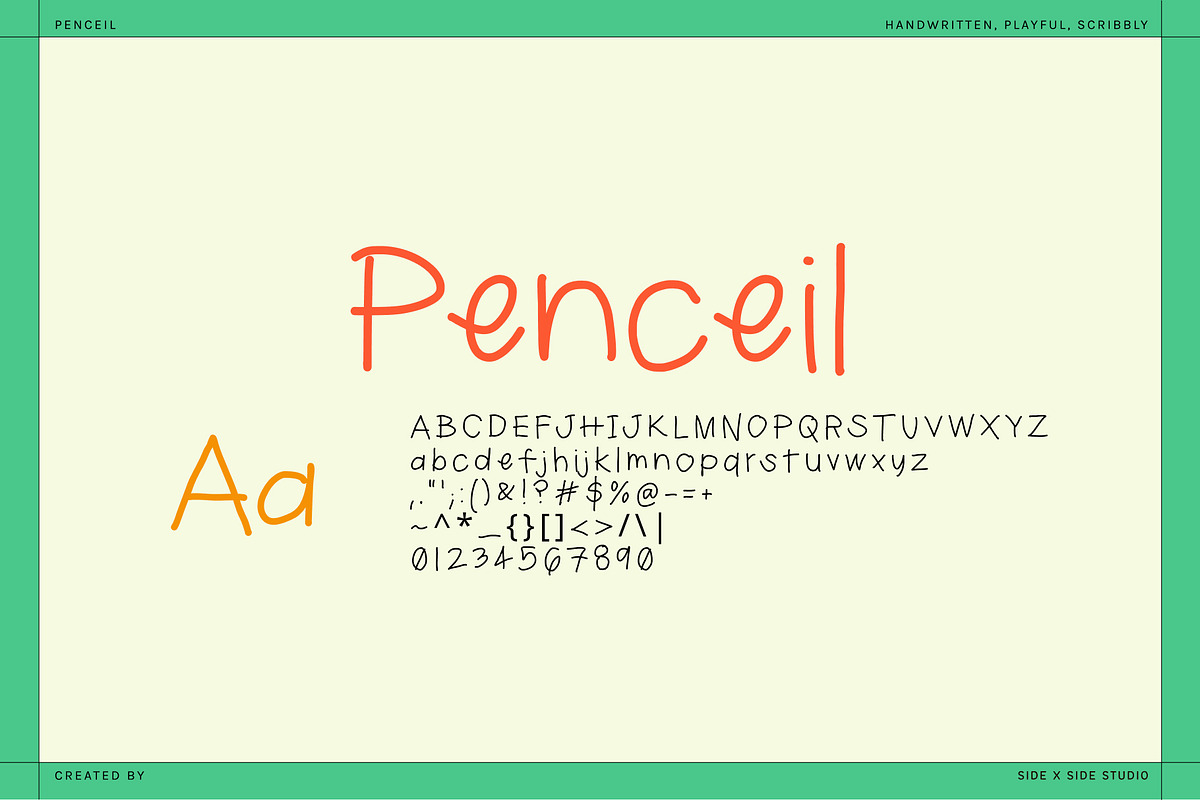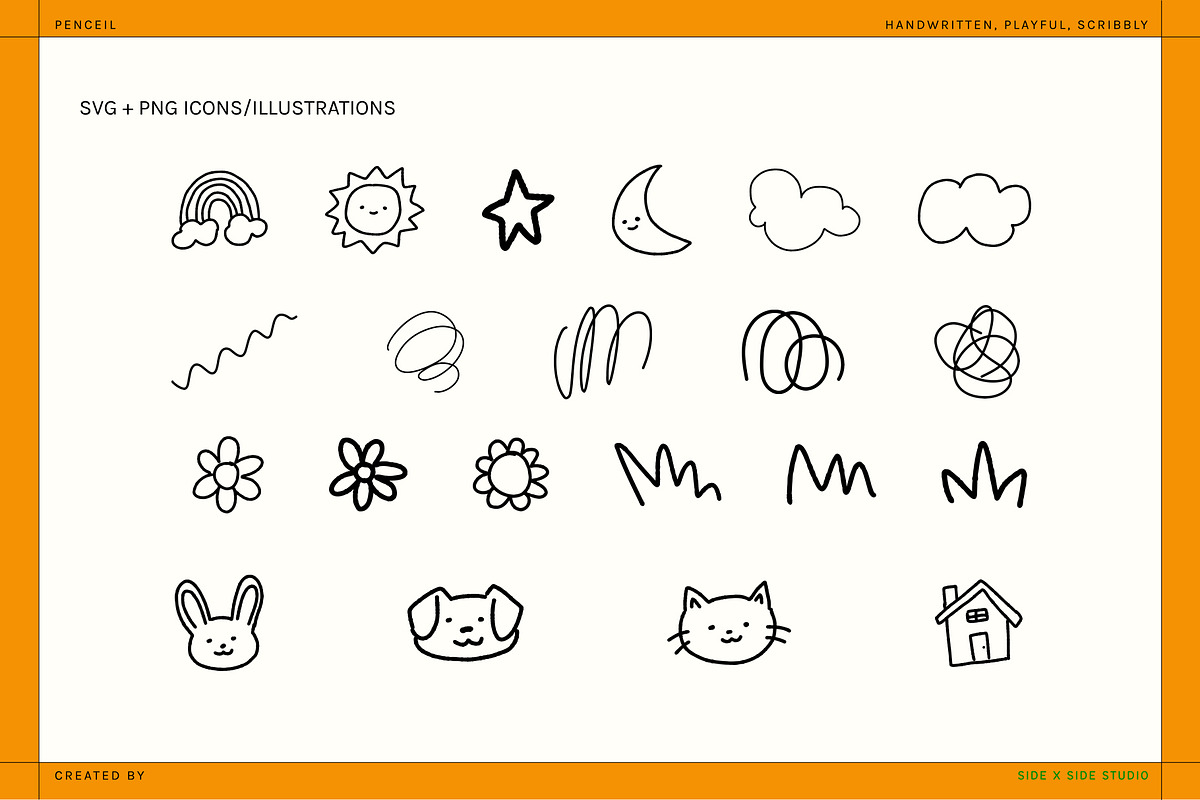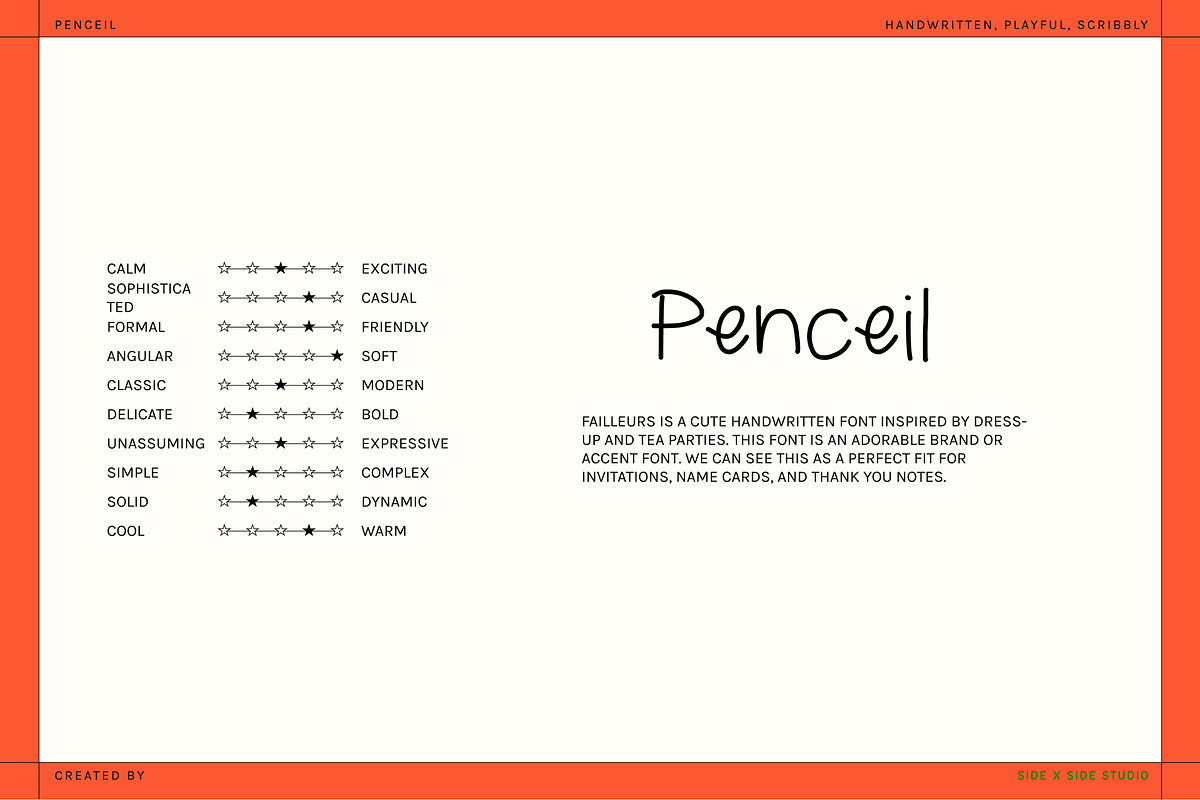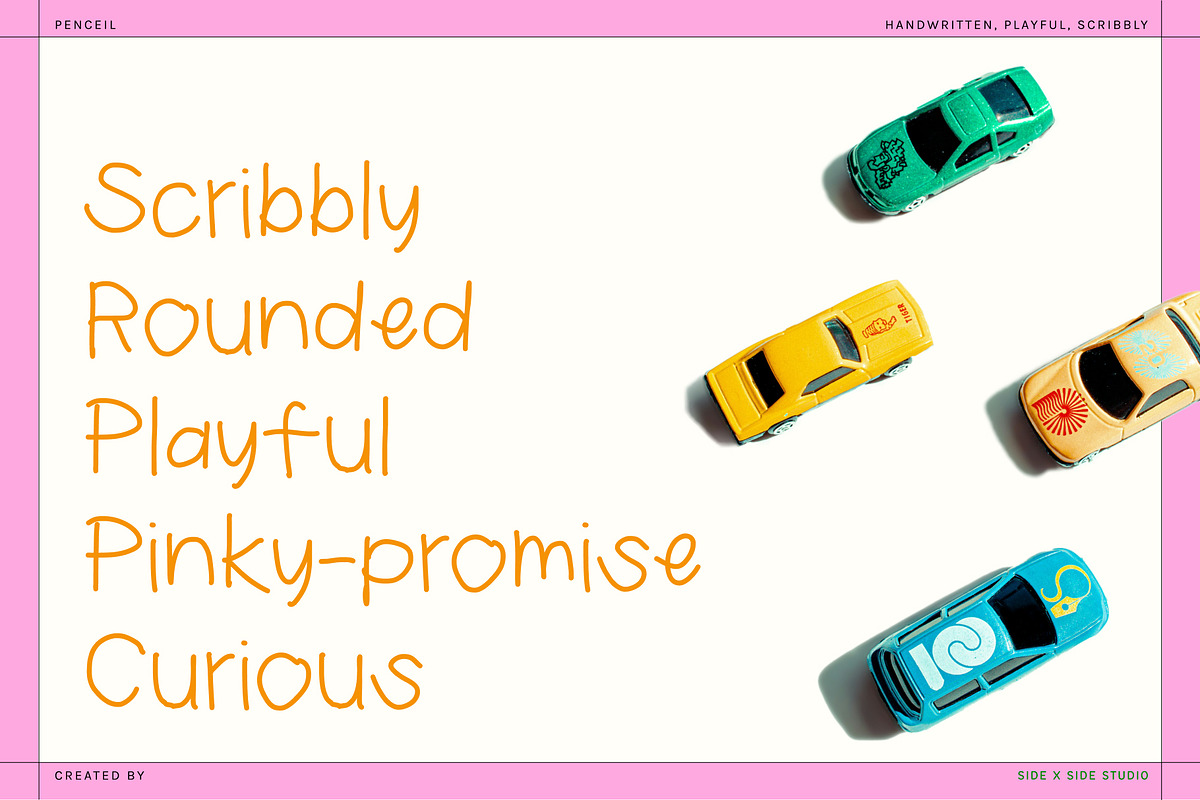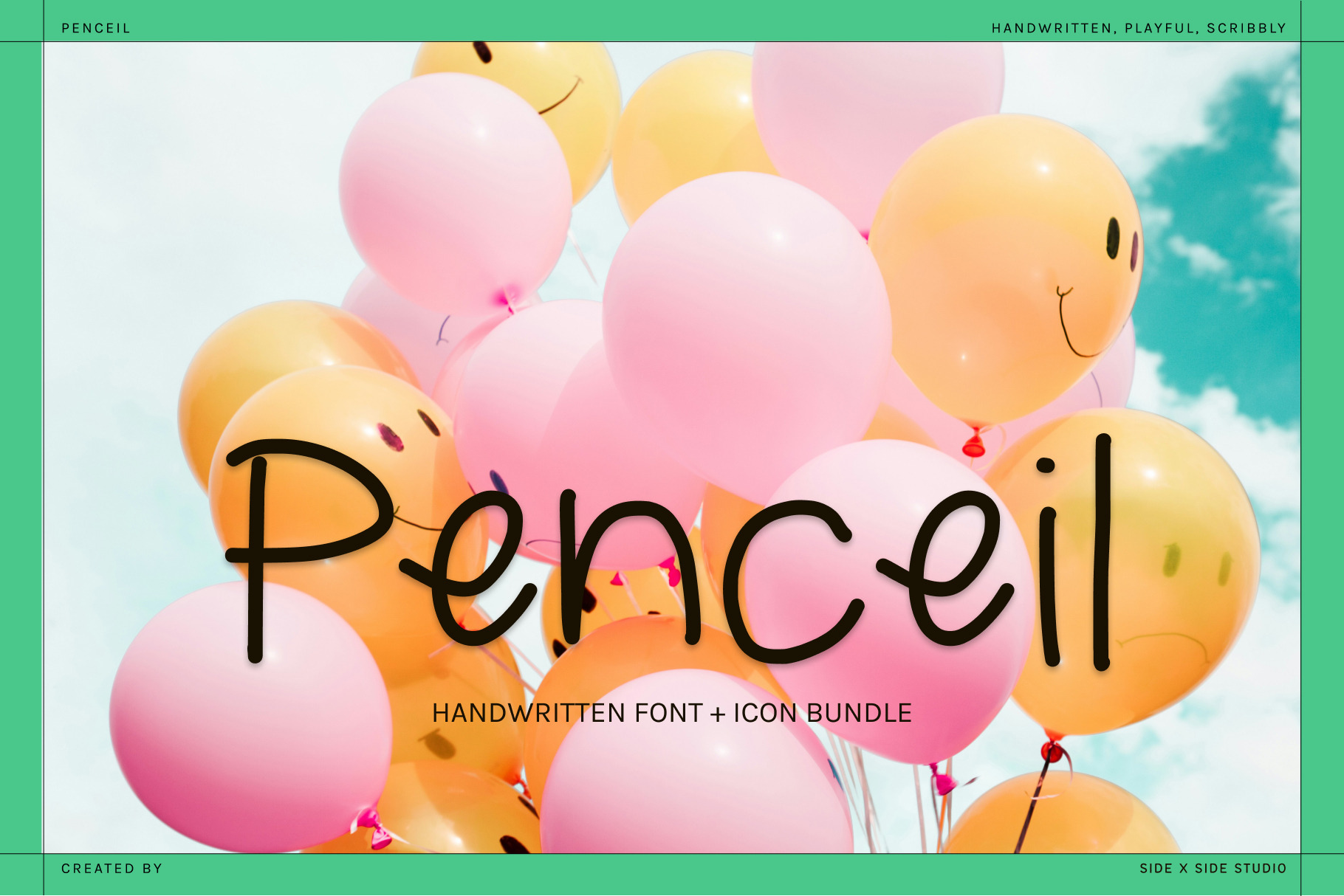
Penceil Handwritten Font + Icons
Penceil is a fun handwritten font that is inspired by friendship bracelets and stuffed animal collections. It’s playful, approachable and would receive a gold-star sticker for good penmanship. We envision this as a cute accent font, but it’s legible enough to be used in larger text amounts.